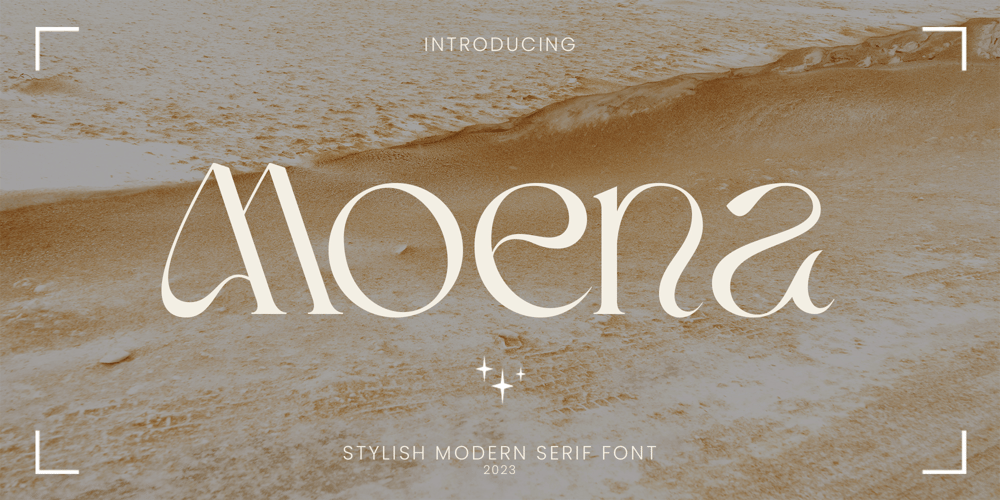
Moena Font Family was designed by Yogiswhara Dio Prakoso Riadi and published by RagamKata. Moena contains 1 styles and family package options. Moena | Stylish Modern Serif FontMoena is a unique serif font that showcases distinctive characters in each letter, while maintaining a high level of readability. With its slight thinness, this font remains versatile for all design purposes, especially for logo designs.Moena’s uniqueness lies in its meticulously crafted letterforms, where each character carries its own distinct personality. The font exudes an air of creativity and elegance, making it ideal for adding a touch of sophistication to your designs.Whether you’re working on logos, branding, or other design projects, Moena’s versatility shines through. Its delicate yet readable appearance adds a sense of refinement, allowing your designs to stand out effortlessly.Crafted with precision and a keen eye for detail, Moena ensures that every curve and stroke is thoughtfully designed to maintain legibility while showcasing its individualistic charm.With Moena, you have a powerful tool to create captivating and memorable designs that leave a lasting impression. Unleash your creativity and elevate your designs with the unique character of Moena!